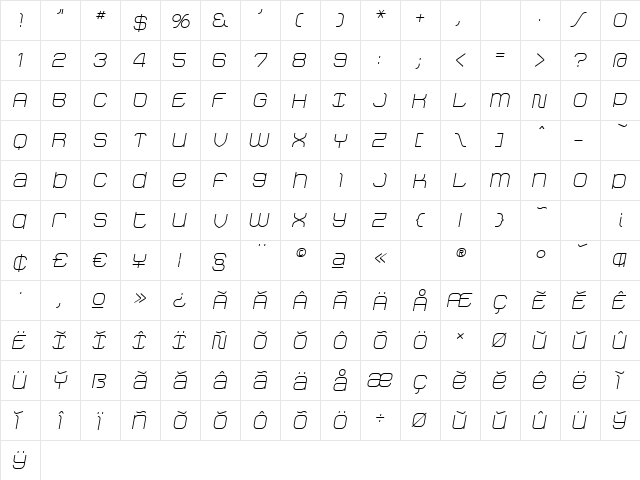
StakLight Oblique Regular Font Preview
StakLight Oblique Regular
StakLight Oblique Regular Font Details
Design Context for StakLight Oblique Typeface
StakLight Oblique is a composed and adaptable typeface that performs quietly and consistently across a wide range of design contexts. The slanted form adds forward momentum and visual energy. The delicate stroke weight brings airiness and refinement to layouts.
Pro Tip: Try StakLight Oblique for annotation and caption copy alongside an upright companion — the contrast in angle creates a dynamic but ordered typographic system.